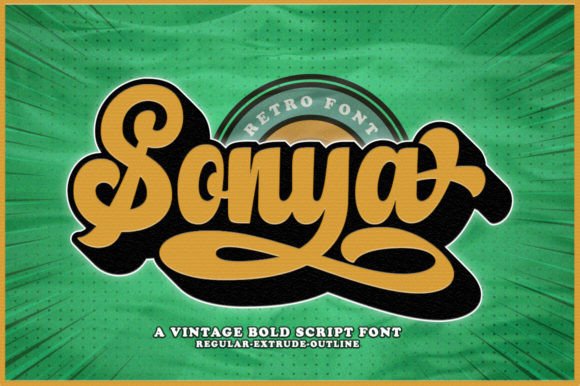
Prepare yourself to step into a world of captivating typography with the Sonya Font, a display font that embodies the essence of nostalgia and vintage charm. This meticulously crafted font, brought to life by LetterFreshStudio, draws inspiration from the golden era of 70s and 80s retro typography and lettering. Experience the thrill of designing with a font that exudes bold typographic flair, perfect for igniting creativity and leaving an unforgettable impact.
With the Sonya Font, you'll discover a treasure trove of design possibilities. Unleash your imagination and craft vintage-inspired logos that evoke a sense of timelessness. Create eye-catching badges and posters that transport viewers back to the days of classic Americana. Design t-shirts and apparel that radiate a retro vibe, capturing the essence of yesteryear's fashion trends. The possibilities are endless with this versatile font.
More than just a collection of characters, the Sonya Font is a gateway to unlocking your creative potential. Its vintage charm adds a touch of authenticity and character to any project, evoking a sense of longing for simpler times. Whether you're a seasoned designer or just starting your creative journey, the Sonya Font is the perfect companion for your design adventures.
As you delve into the world of the Sonya Font, you'll discover a font that not only enhances your designs but also engages your audience. Its unique letterforms and intricate details create a visual feast that captivates the eye and leaves a lasting impression. Prepare to witness your designs come alive with a font that speaks volumes without uttering a single word.